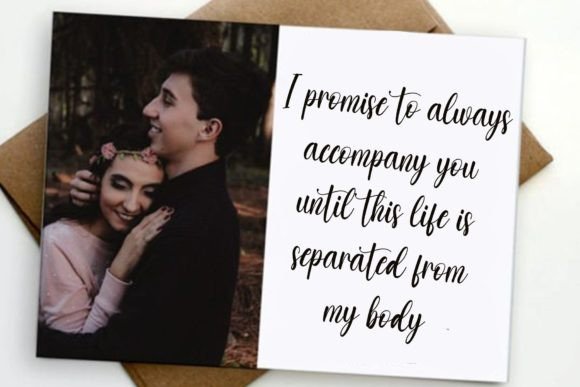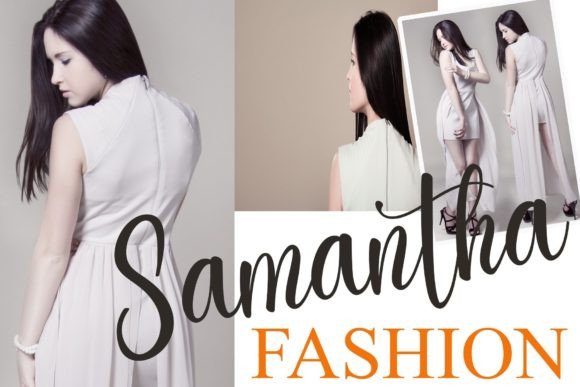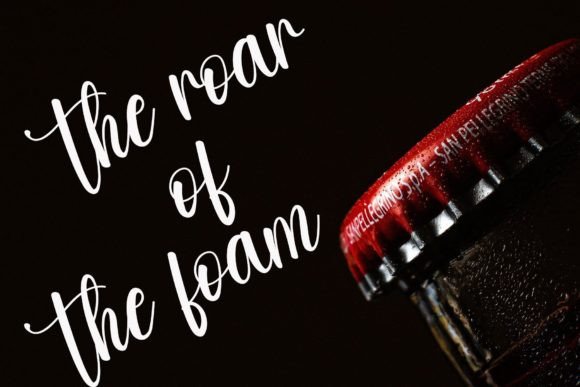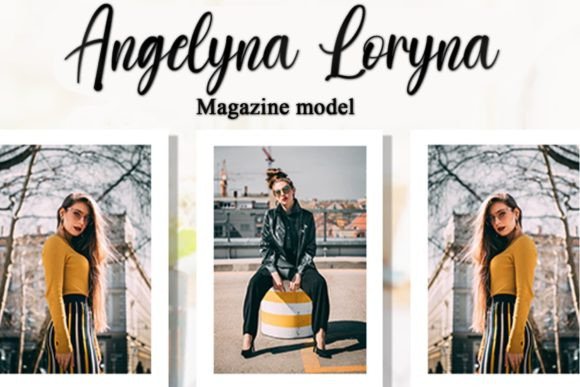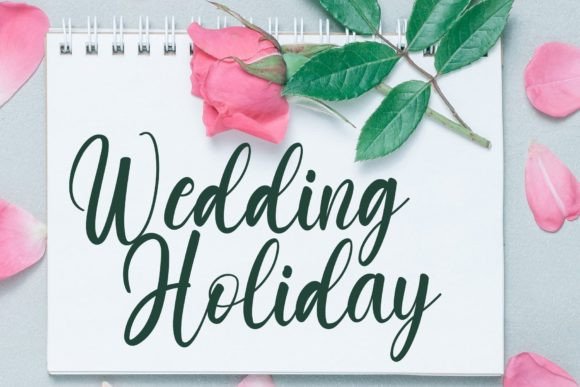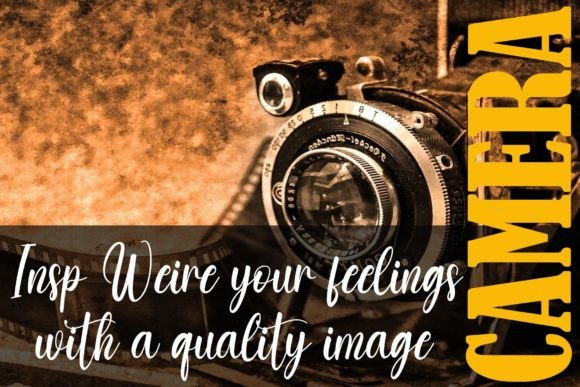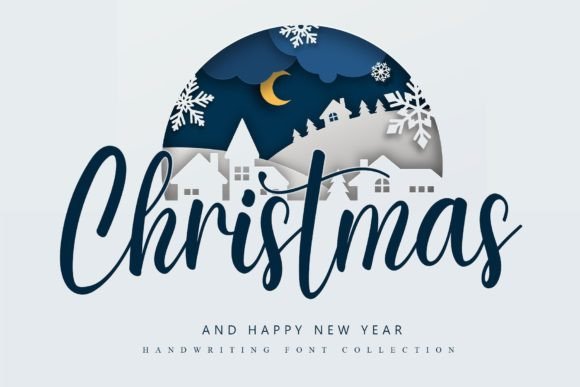
Introducing Christmas Font: The Magical Handwritten Font for Elegant Designs
Are you looking for a font that can add a touch of elegance and magic to your designs? Look no further than the Christmas Font! This beautifully crafted handwritten font is perfect for designers and crafters who want to create stunning visual content for their Instagram feeds, DIY projects, or any other creative endeavor. In this article, we’ll take a closer look at the Christmas Font and explore its features, benefits, and uses.
What is Christmas Font?
Christmas Font is a carefully designed handwritten font that exudes elegance and sophistication. Its unique and flowing script is reminiscent of traditional calligraphy, making it perfect for a wide range of creative projects. Whether you’re a designer, crafter, or DIY enthusiast, this font is sure to inspire your next project and turn it into a true piece of art.
Features of Christmas Font
So, what makes Christmas Font so special? Here are some of its key features:
- Handwritten script: Christmas Font features a beautiful, handwritten script that is both elegant and playful.
- Magical feel: The font has a whimsical and magical feel to it, making it perfect for holiday-themed designs and projects.
- Elegant and sophisticated: The font’s flowing script and classic letterforms give it an air of elegance and sophistication.
- Versatile: Christmas Font can be used for a wide range of creative projects, from Instagram posts to DIY crafts.
Benefits of Using Christmas Font
So, why should you choose Christmas Font for your next project? Here are some benefits of using this amazing font:
- Adds a touch of elegance: Christmas Font can instantly elevate your designs and add a touch of sophistication.
- Perfect for holiday-themed designs: The font’s magical and whimsical feel makes it perfect for holiday-themed designs and projects.
- Inspires creativity: The font’s unique and beautiful script is sure to inspire your creativity and turn your project into a true piece of art.
Uses of Christmas Font
Christmas Font is a versatile font that can be used for a wide range of creative projects. Here are some ideas to get you started:
- Instagram posts: Use Christmas Font to create beautiful and elegant Instagram posts that will make your feed stand out.
- DIY crafts: Add a touch of elegance to your DIY crafts, such as handmade cards, gift tags, and decorations.
- Holiday-themed designs: Use Christmas Font to create stunning holiday-themed designs, such as Christmas cards, invitations, and posters.
- Calligraphy projects: The font’s beautiful script makes it perfect for calligraphy projects, such as quotes, poems, and phrases.
Tips for Using Christmas Font
Here are some tips for using Christmas Font to get the most out of this amazing font:
- Experiment with different colors: Try pairing Christmas Font with different colors to create unique and eye-catching designs.
- Use it sparingly: Use Christmas Font sparingly to add a touch of elegance to your designs, rather than overwhelming them.
- Pair it with other fonts: Experiment with pairing Christmas Font with other fonts to create interesting and dynamic designs.
In conclusion, Christmas Font is a magical handwritten font that can add a touch of elegance and sophistication to your designs. Its unique and flowing script makes it perfect for a wide range of creative projects, from Instagram posts to DIY crafts. With its ease of use, versatility, and inspiring beauty, Christmas Font is sure to become a favorite among designers and crafters. So why wait? Download Christmas Font today and turn your creative ideas into true pieces of art!